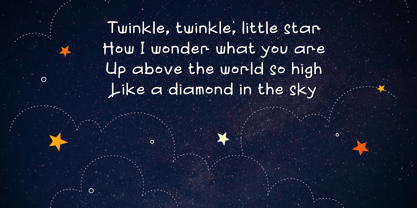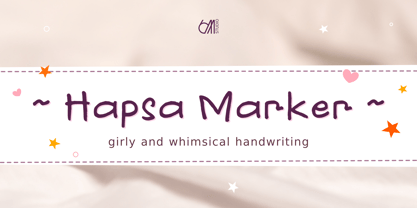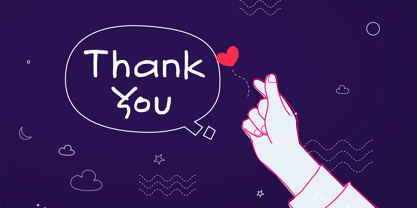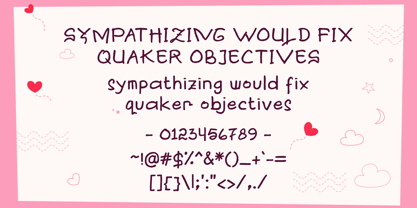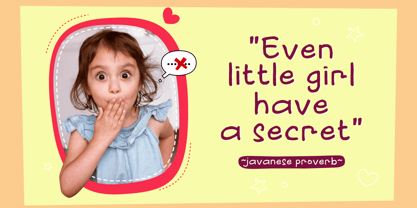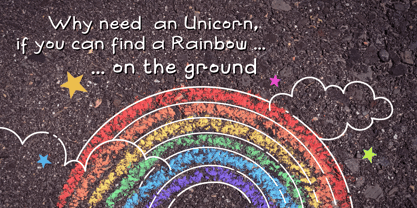
Hapsa Marker
by 611 Studio
The Hapsa Marker Font Family was designed by Rijal Muttaqin and published by 611 Studio. Hapsa Marker contains 1 styles. More about this family
611 Studio proudly presents Hapsa Marker, a charming handwritten typeface that embodies a distinctly childlike yet feminine and unique aesthetic. Crafted from authentic handwriting, this clean and easy-to-read typeface is ideal for a variety of applications, including feminine designs, children's books, and teen storybooks. Hapsa Marker stands out with its playful character and versatility, making it a perfect choice for branding, web design, and editorial projects. Enjoy the delightful charm of Hapsa Marker in your next creative endeavor!
Designers: Rijal Muttaqin
Current Foundry: 611 Studio